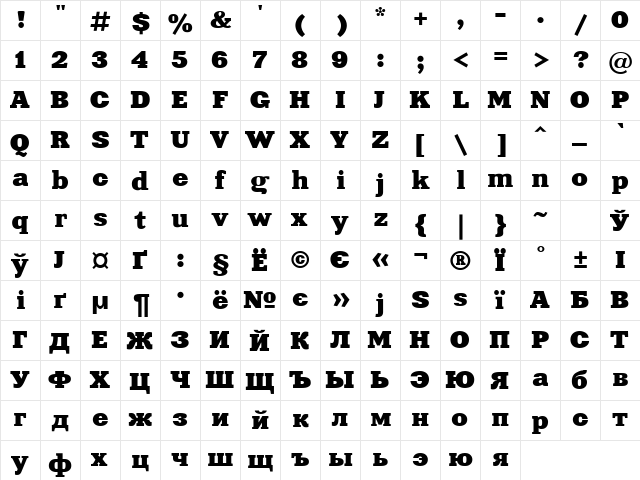
XeniaExtendedC Regular
Design Context for XeniaExtendedC Typeface
XeniaExtendedC takes a measured approach to typography — its balanced proportions and neutral character make it a reliable workhorse for both digital and print work.